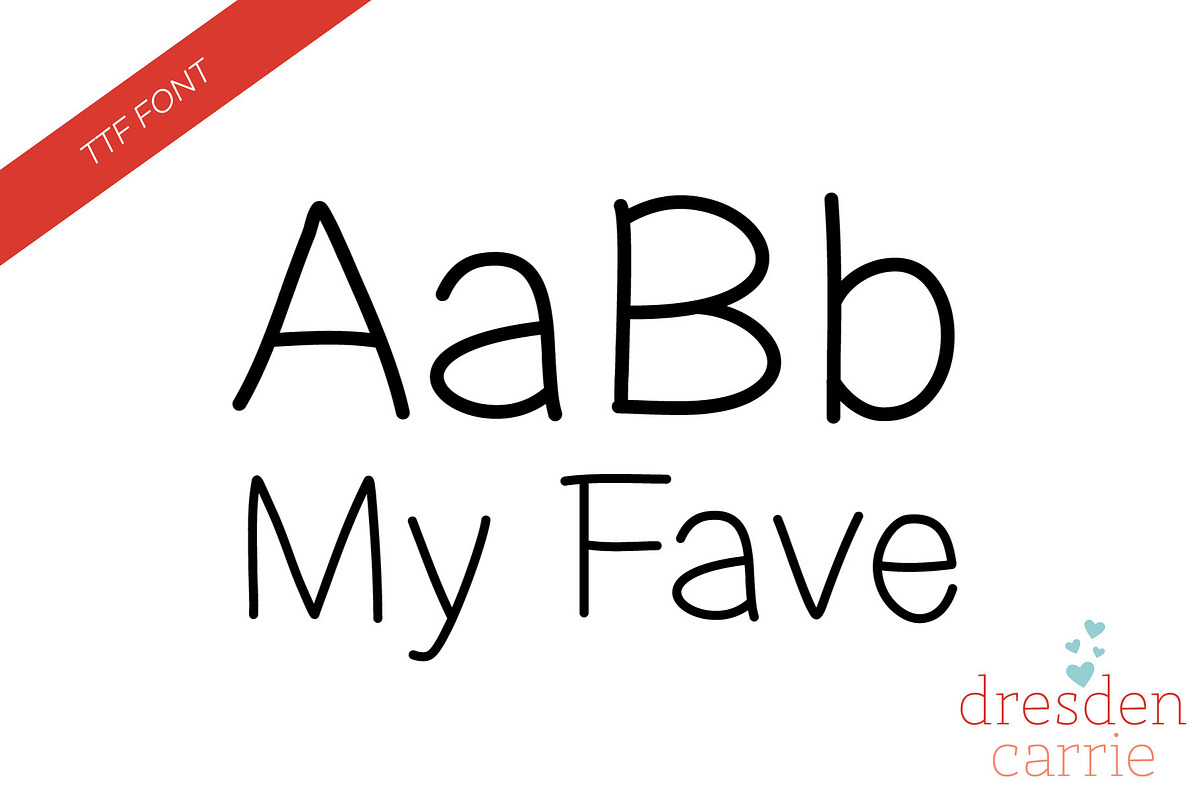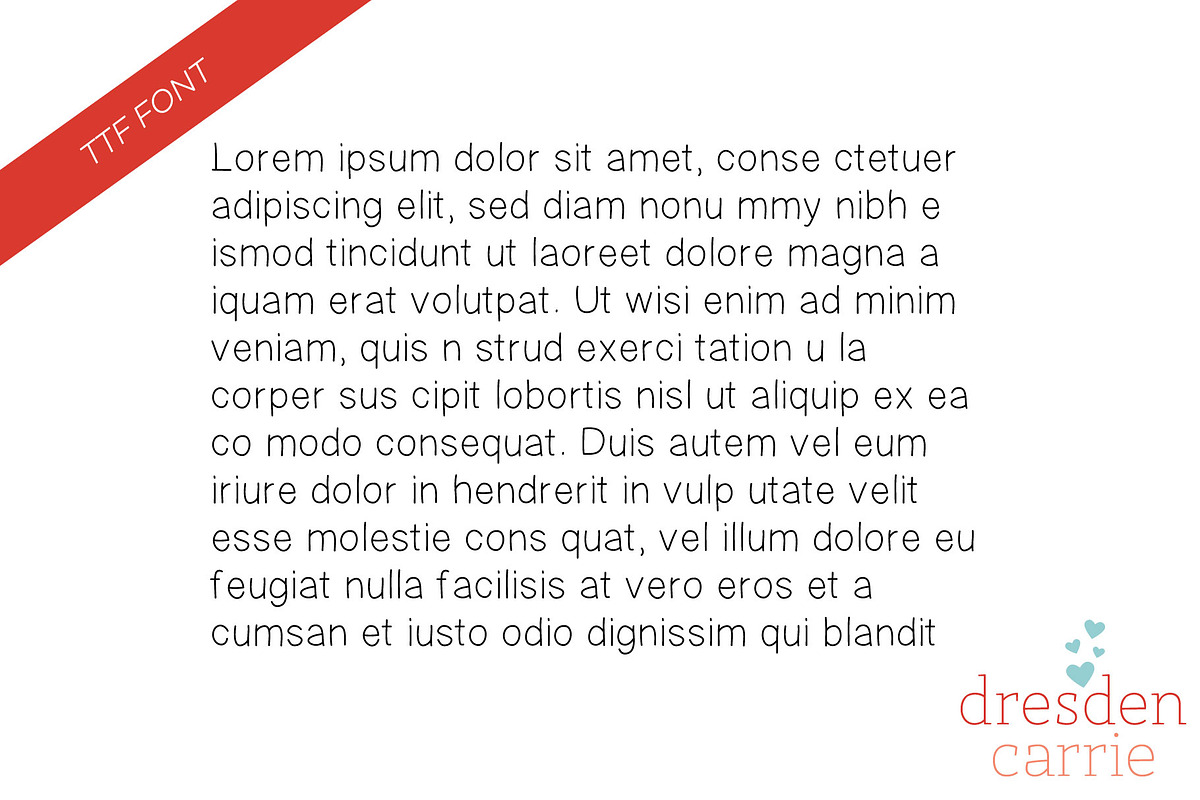
My Fave Hand-Drawn Font
Why My Fave Hand-Drawn Font is worth a look
My Fave Hand-Drawn Font by dresdencarrie designs fits naturally into Branding, posters, packaging, typography.